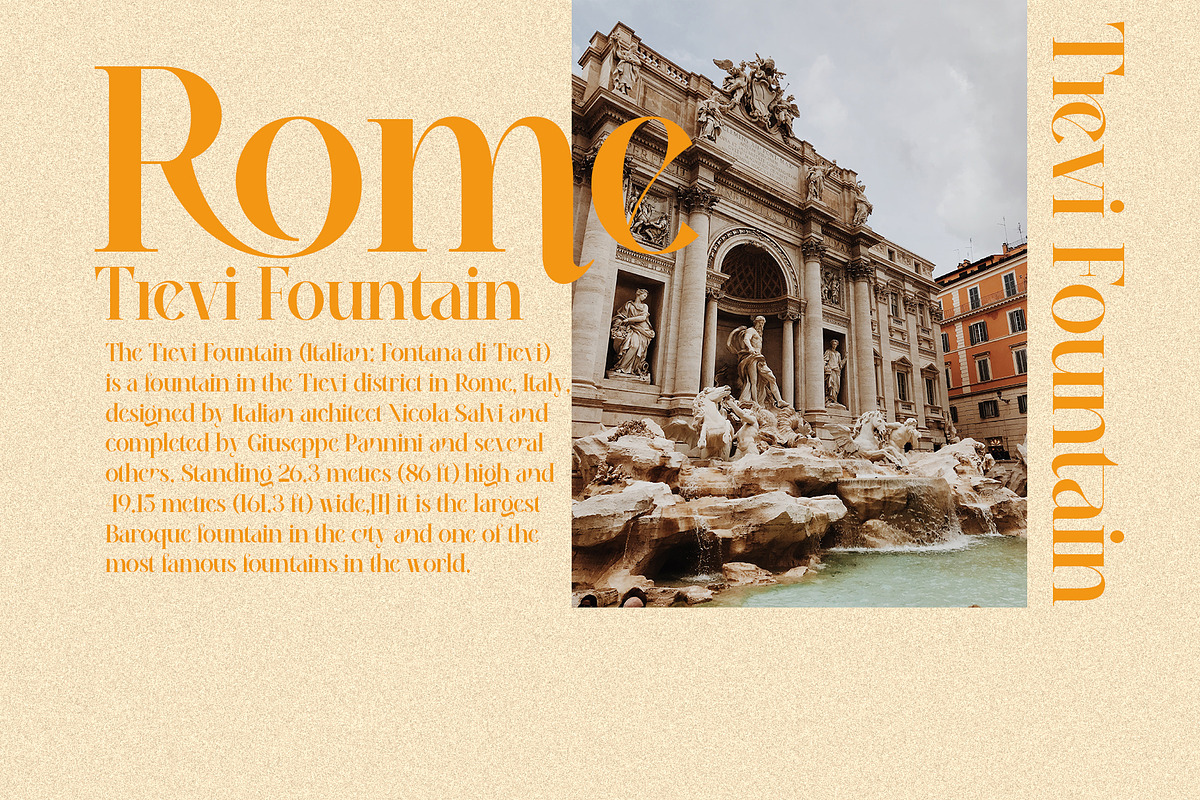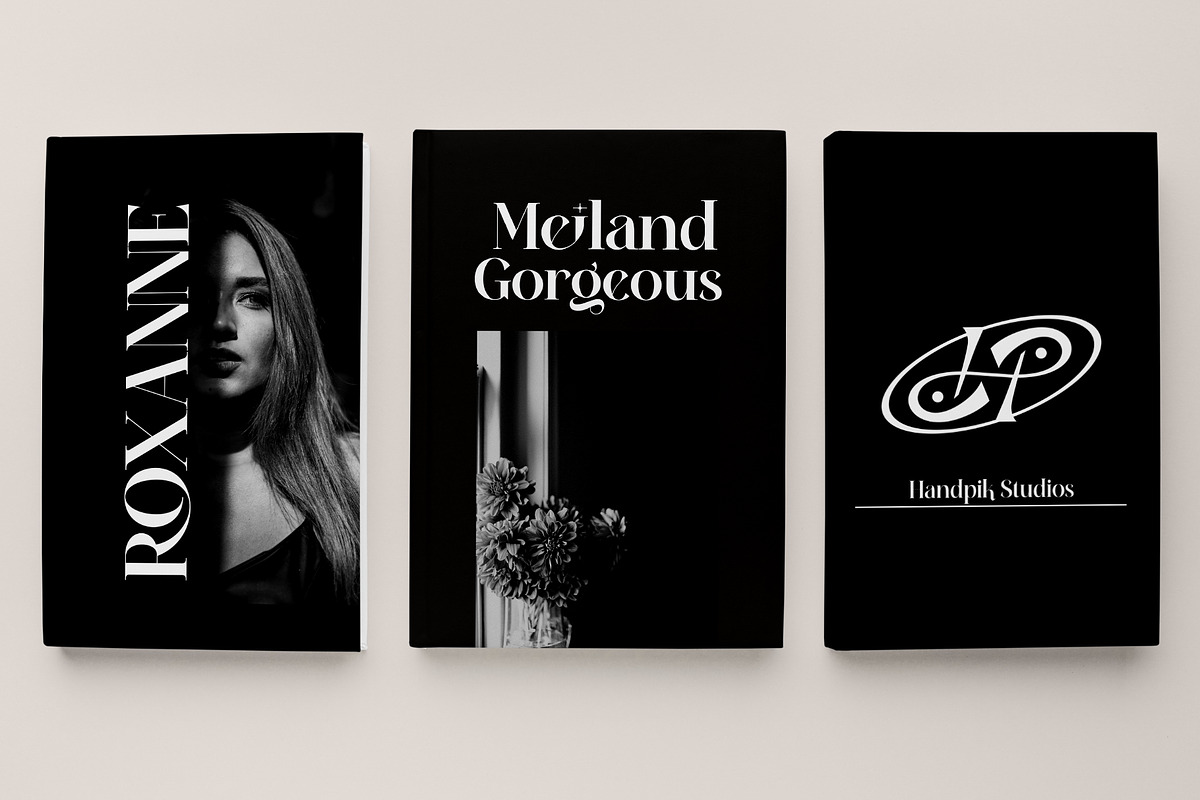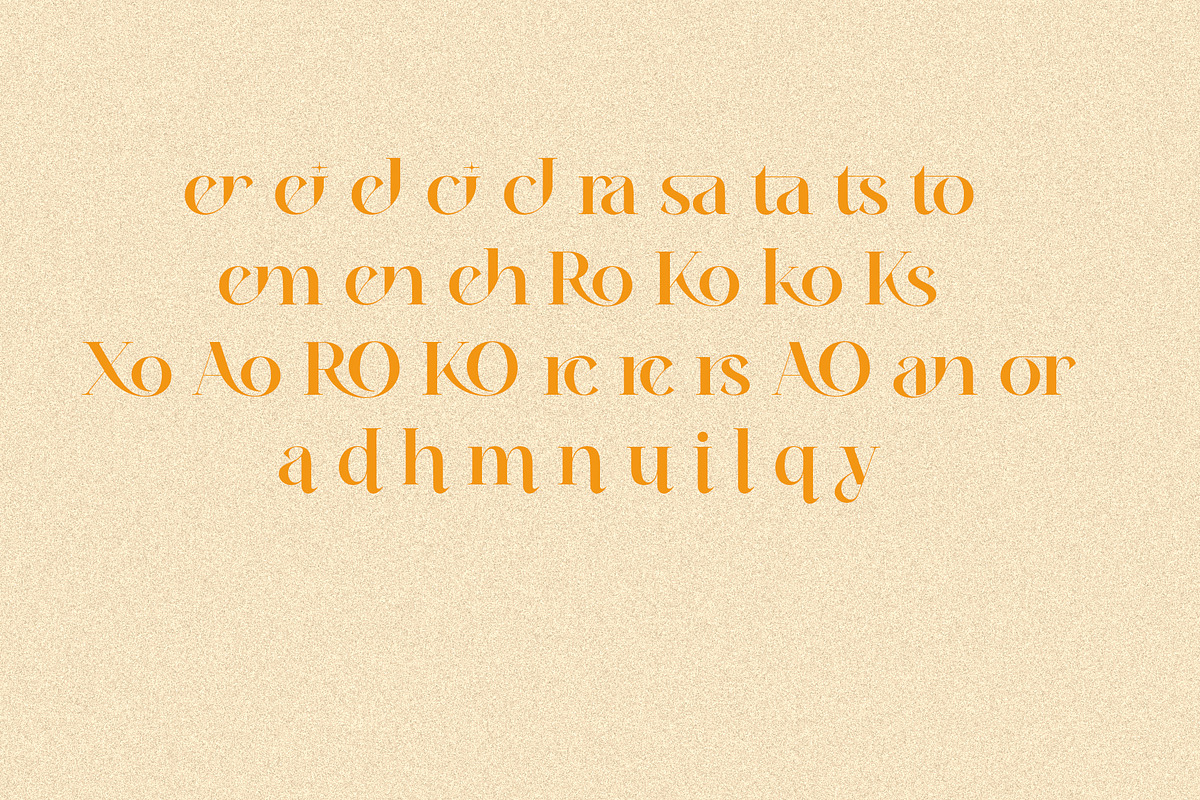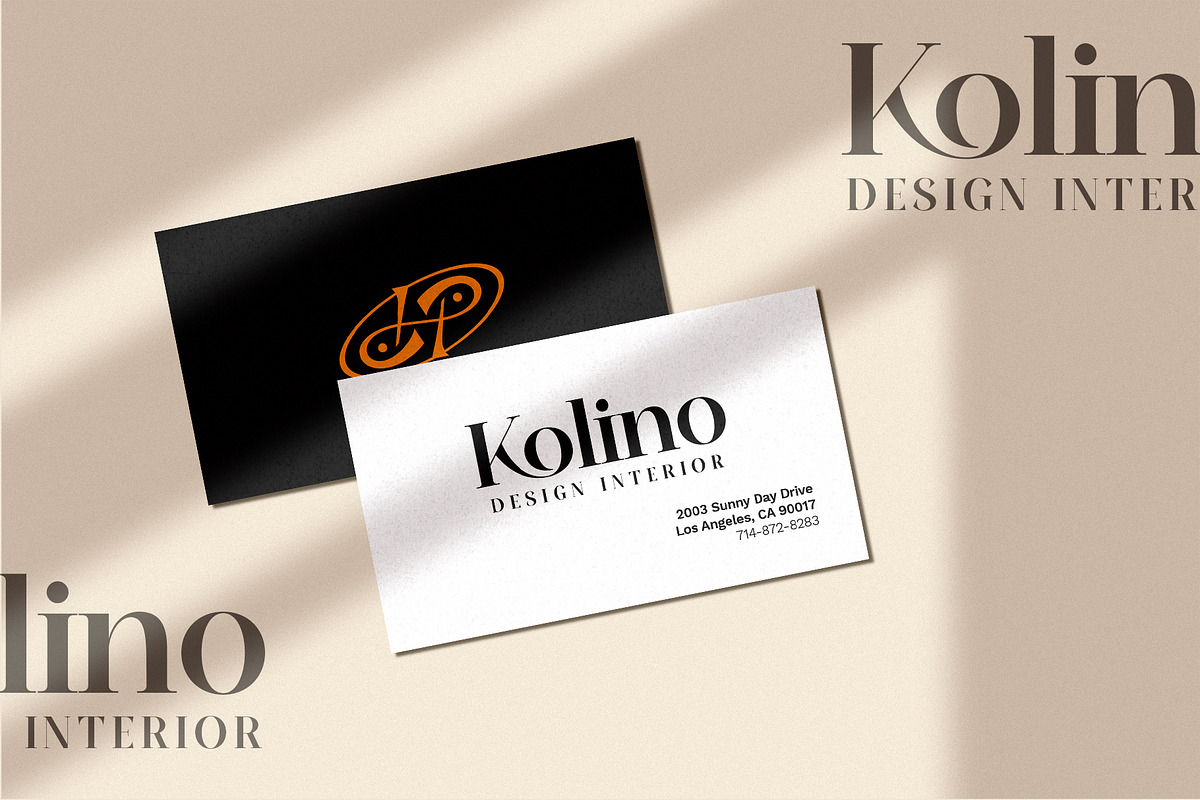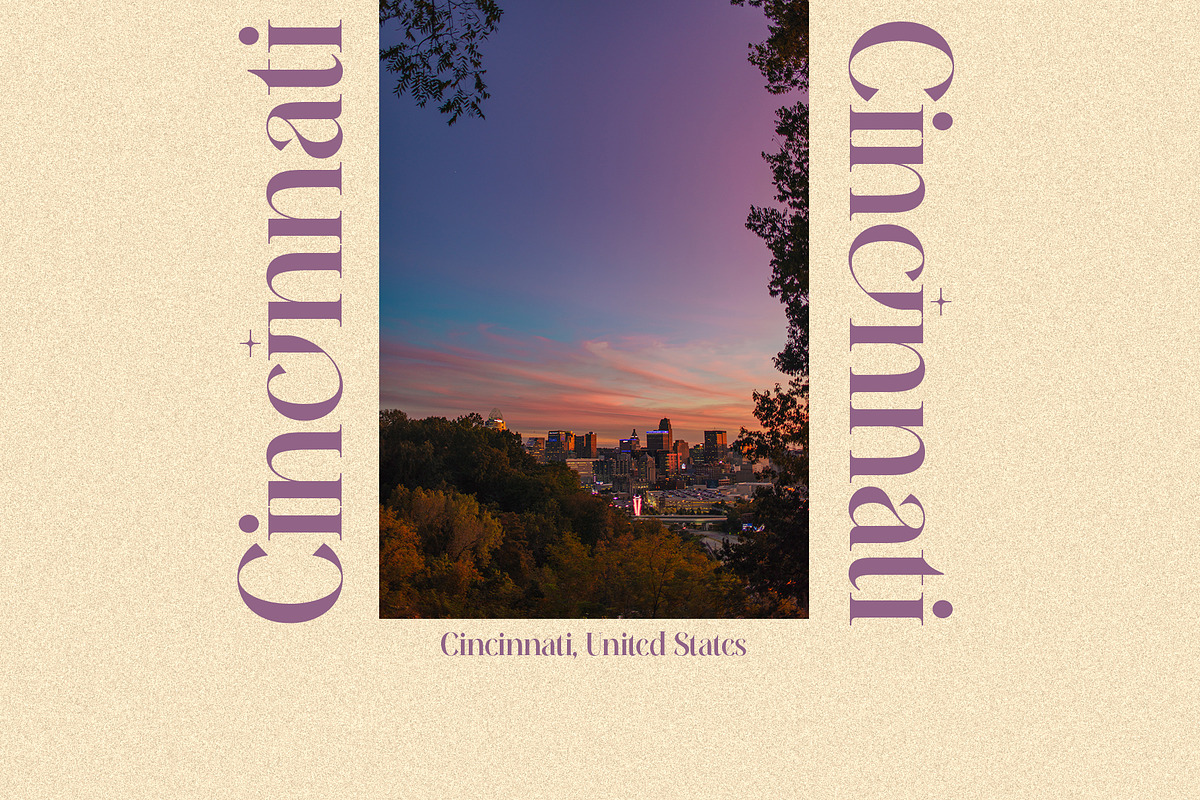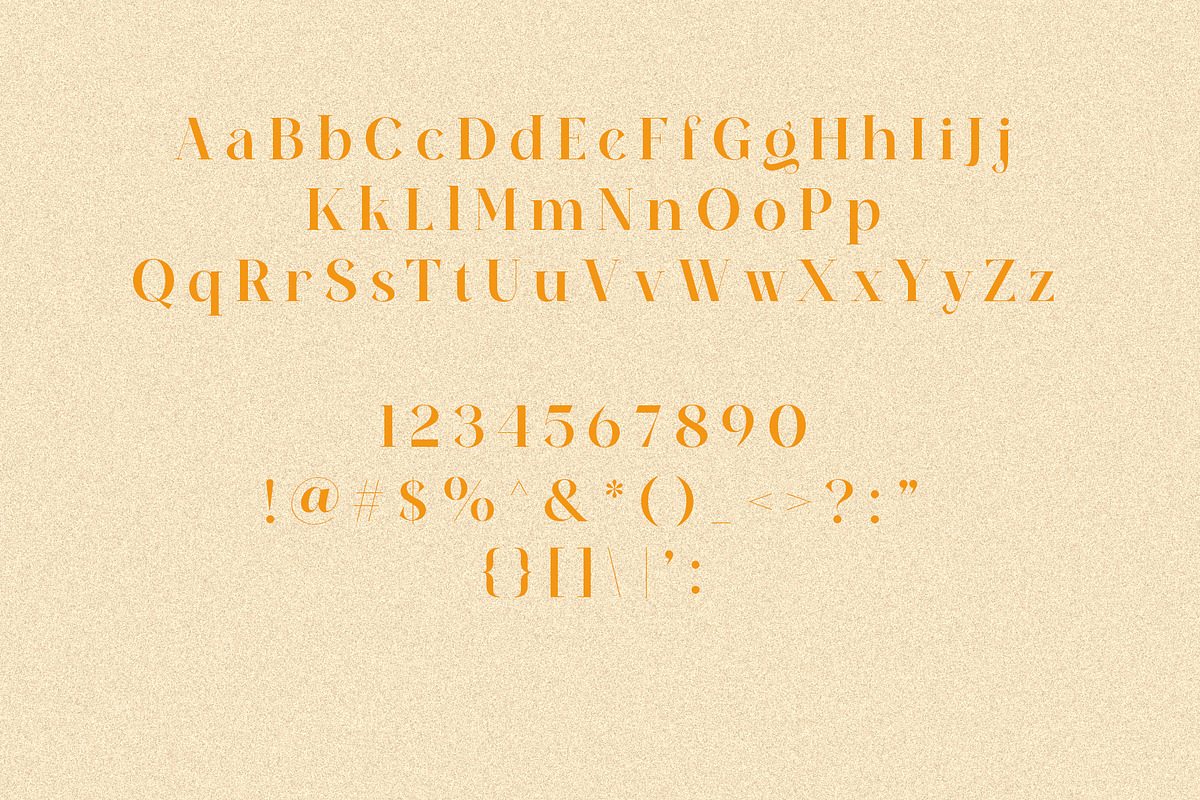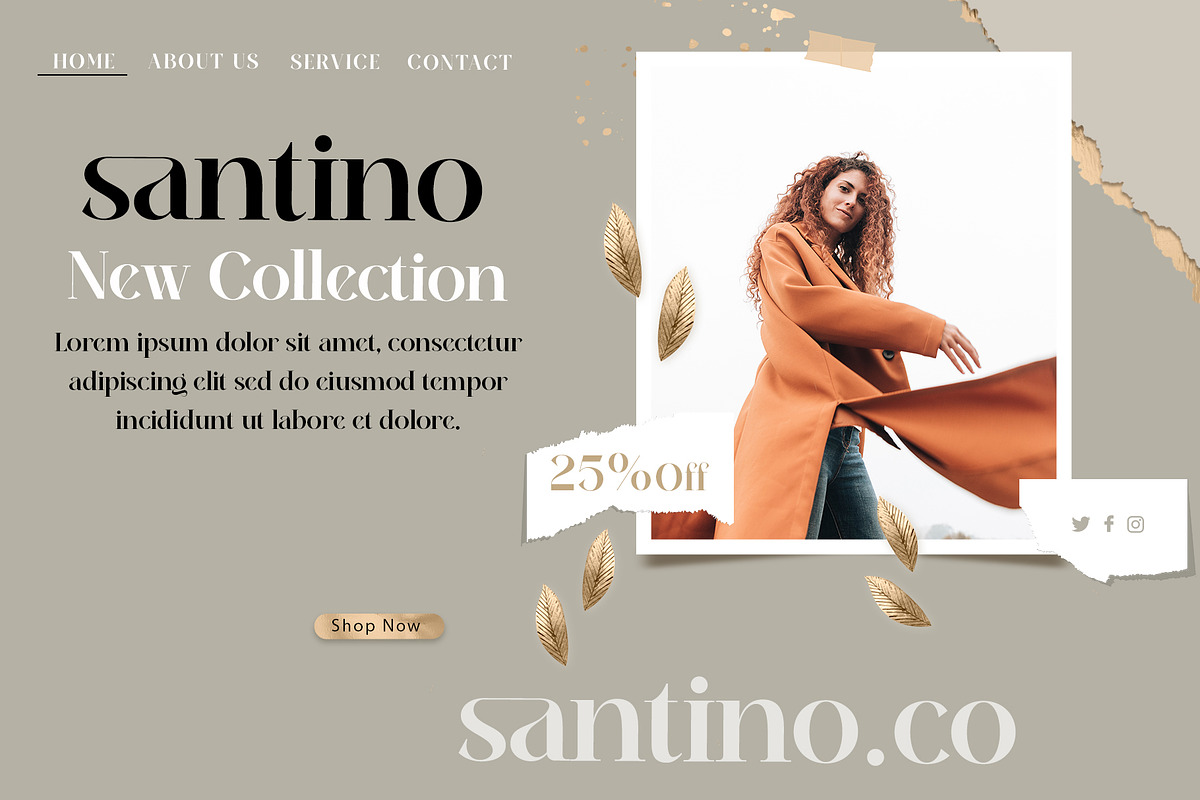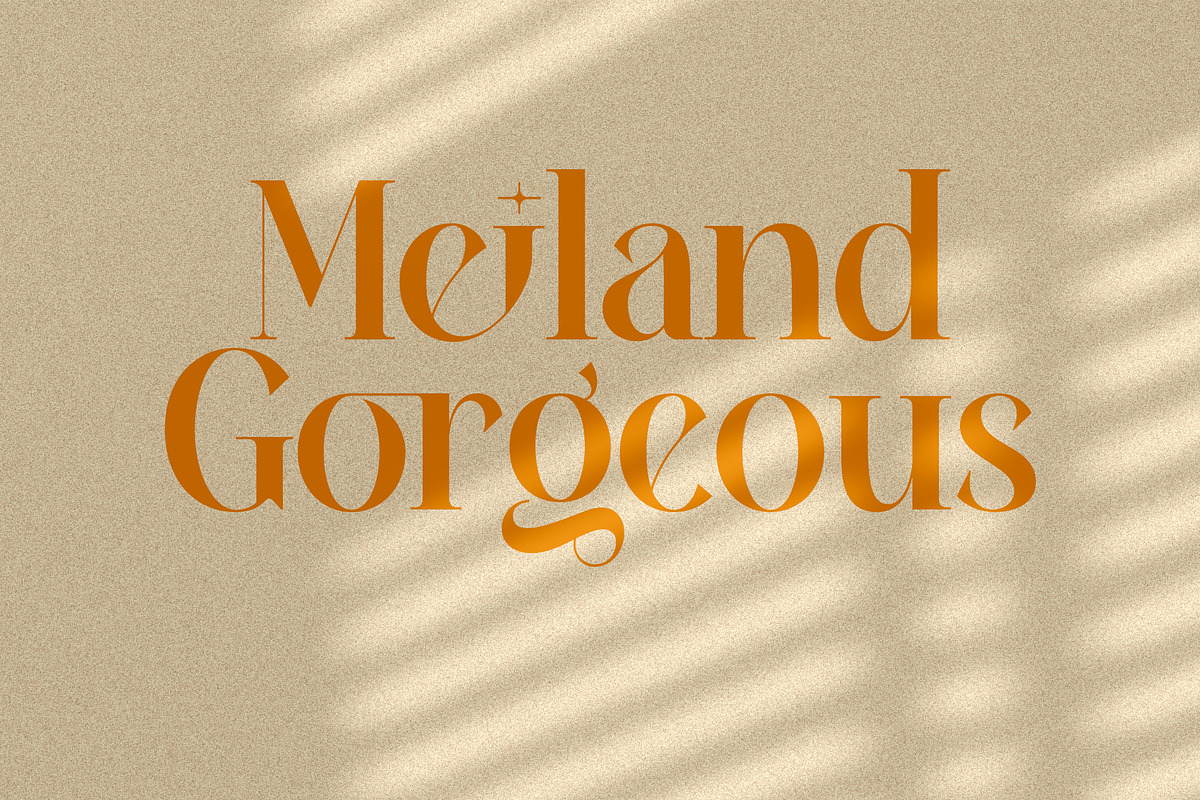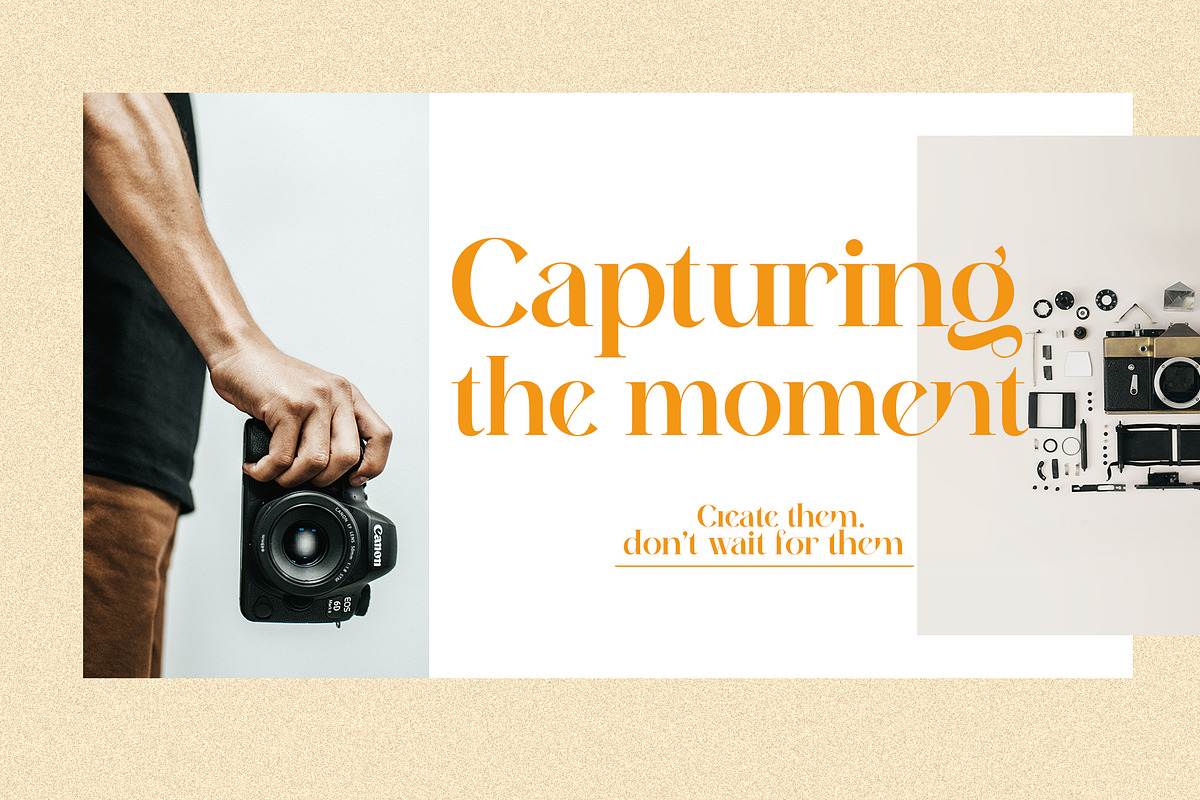
Meiland Gorgeous
Meiland is a display serif typeface.
The Meiland serif font will perfect for many project: book, magazines, logo, branding, photography, quotes, blog header, poster, advertisements, etc.
- numbers & punctuation
- ligature